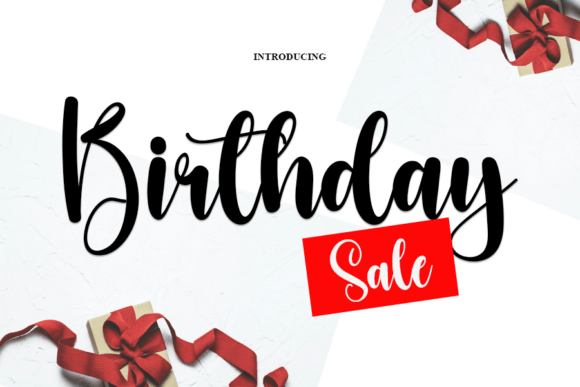
Birthdays, Brunch, and Beautiful Typefaces
Who hasn’t spent hours crafting the perfect birthday invitation or planning a themed party, only to be stumped by the perfect font to match the celebratory vibe? I know I have! It’s those moments when creativity strikes, and you’re on the hunt for the perfect typographic partner that make design truly magical.
Enter the Birthday Sale Font, a charming handwritten font designed to add a touch of whimsy and elegance to any project. With its delicate lines and unique flair, this font is perfect for writing letters, crafting invitations, or even labeling food products. Whether you’re a seasoned designer or a creative enthusiast, the Birthday Sale Font is a valuable addition to your toolkit, offering a fresh and distinctive way to express your vision.
Birthday Sale Font Key Features
- Font Family: Birthday Sale Font offers a unique and playful font family with 6 styles, including regular, bold, italic, bold italic, script, and bold script.
- Unique Characteristics: Birthday Sale Font features a celebratory and festive feel, making it perfect for birthday-themed designs, promotions, and events. The font’s unique script style adds a touch of elegance and sophistication.
Birthday Sale Font Review
I recently had the chance to work with the “Birthday Sale Font” and here’s my honest take on it.
- The font’s playful and energetic vibe is perfect for capturing the excitement of a birthday sale. It’s a great choice for promotional materials like posters, flyers, or social media graphics.
- The font is highly customizable, allowing you to adjust the color, size, and style to fit your brand’s aesthetic.
- The font is also well-suited for digital displays, such as LED signs or electronic billboards, due to its clear and legible design.
- The font may not be the best choice for formal or professional applications, as its playful nature may come across as unprofessional.
- The font’s design may not be as versatile as some other fonts, limiting its use in certain contexts.
Overall, I think the “Birthday Sale Font” is a great choice for birthday sale promotions or other festive events. While it may have some limitations, its playful and customizable design make it a valuable addition to any designer’s toolkit.
Tips: Use the Birthday Sale Font to create eye-catching headings and titles for your birthday sale promotions. Experiment with different font sizes and colors to make your design stand out.
Tips: Use the Birthday Sale Font to create custom graphics and designs for your birthday sale promotions. Experiment with different font combinations and effects to add a professional touch.
Tips: Use the Birthday Sale Font to create engaging headings and titles for your birthday sale promotions. Experiment with different font sizes and colors to make your design stand out.
The Birthday Sale Font is ideal for:
- Birthday sale promotions and advertisements.
- Party invitations and event graphics.
- Custom graphics and designs for social media and email marketing campaigns.
Great Vibes is a modern, elegant script font perfect for adding a touch of sophistication to your designs. It features a flowing, handwritten style that is ideal for titles, headings, and quotes. Use it for formal events, weddings, or high-end branding.
Compared to Birthday Sale Font, Great Vibes has a more refined and polished look, making it suitable for a wider range of applications. It also has a larger character set and better support for international languages.